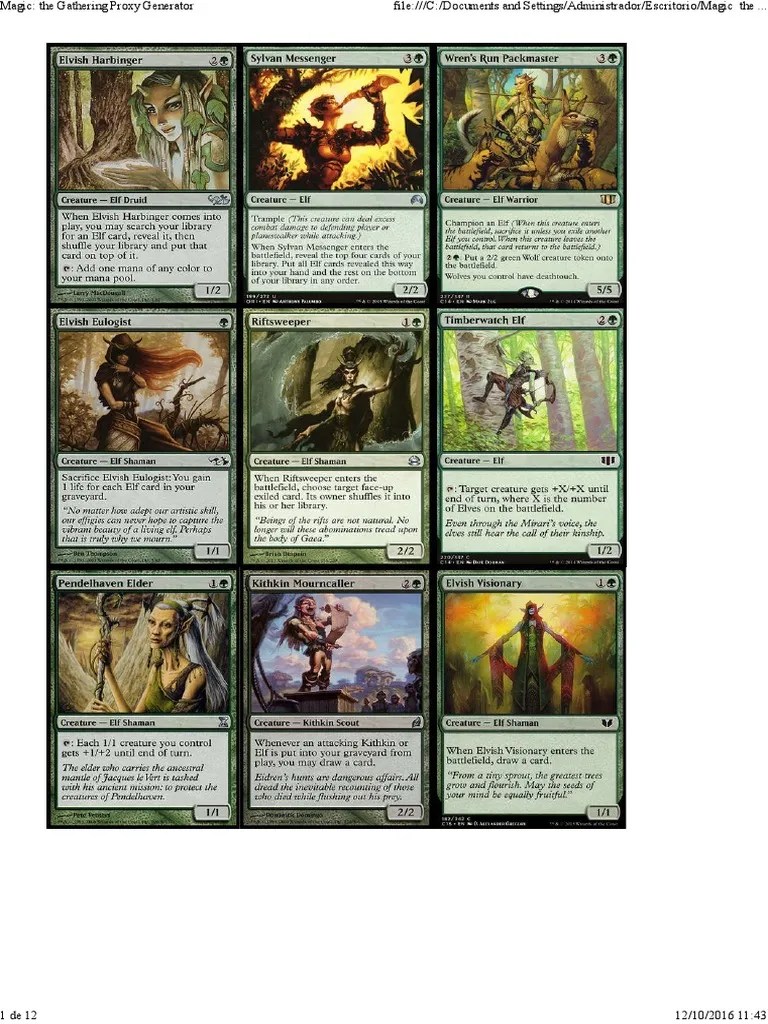
Magic The Gathering Font Generator
Magic The Gathering Font
You can also save the generated image by clicking on it after viewing. This smart font has approximately 100 characters including some dingbats logos. The gathering is a trading card game first published by wizards of the coast in 1993.
For instance, generating a split mana symbol of white/red only requires the following html By 1674 views, 75 downloads. Choose from a variety of card frames card conjurer offers expeditions, inventions, showcase frames, and so much more.
The Gathering Is A Trading Card Game First Published By Wizards Of The Coast In 1993.
Magic the gathering logo magic the gathering magic the gathering cards plain phyrexia island phyrexia swamp phyrexia mountain phyrexia. Fonts, mana symbols, card images. It was embedded without encryption in some pdfs that wotc has published that used the font.
The Gathering Set Symbol Font!
For Instance, Generating A Split Mana Symbol Of White/Red Only Requires The Following Html
With over 8,000 freeware fonts, you've come to the best place to download fonts! The gathering logo is very similar to belwe bold, which is a venetian serif font designed by georg belwe and published by bitstream. An iconic font and css toolkit for magic the gathering.